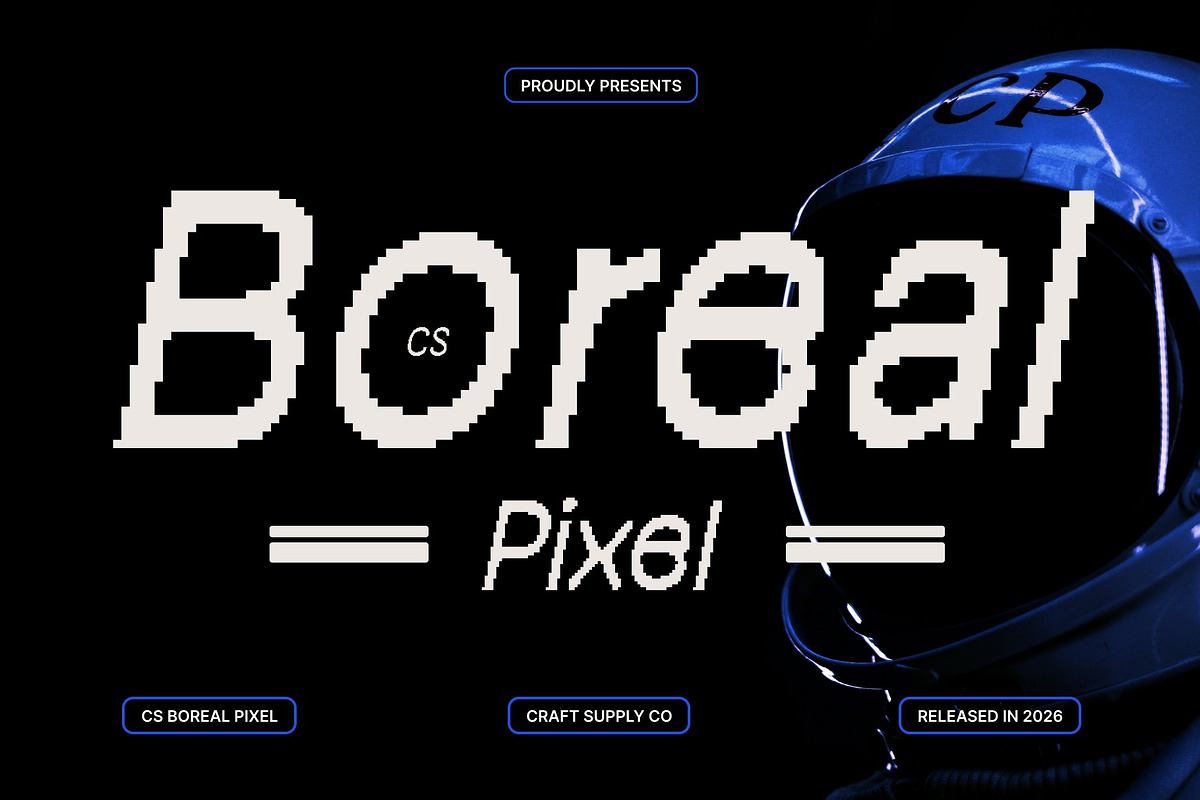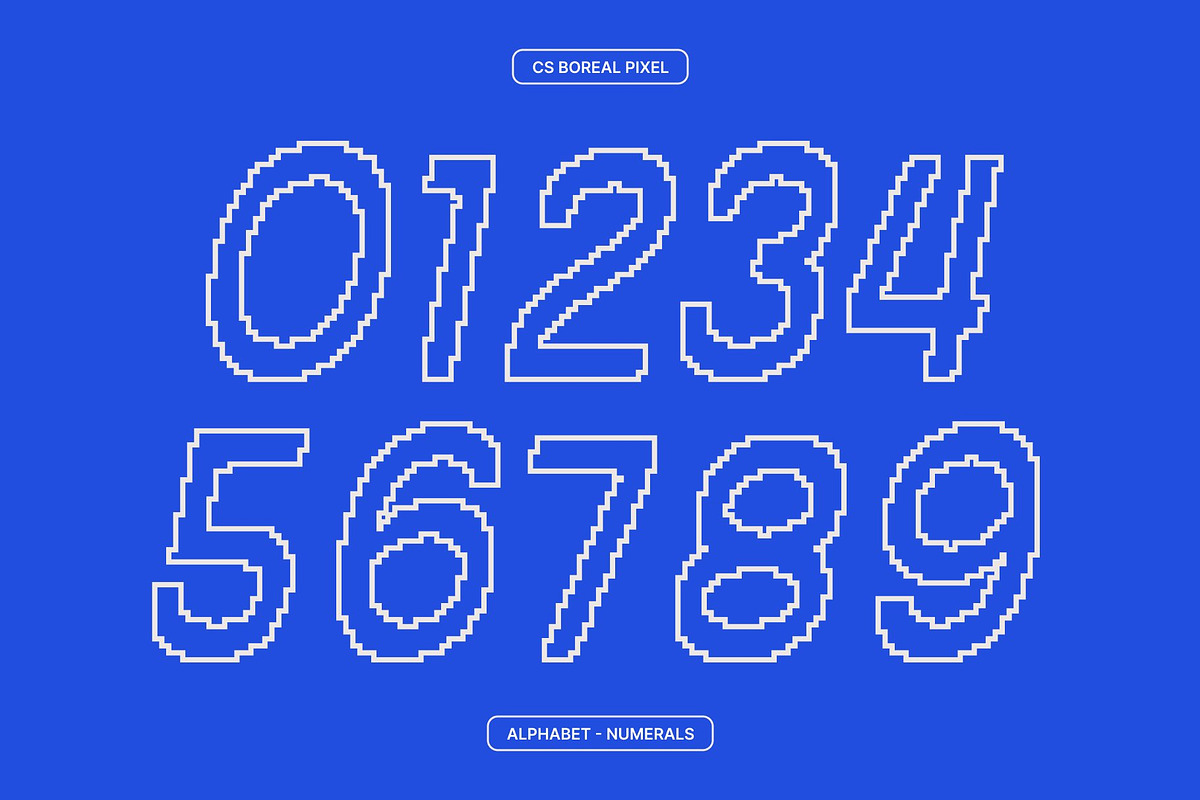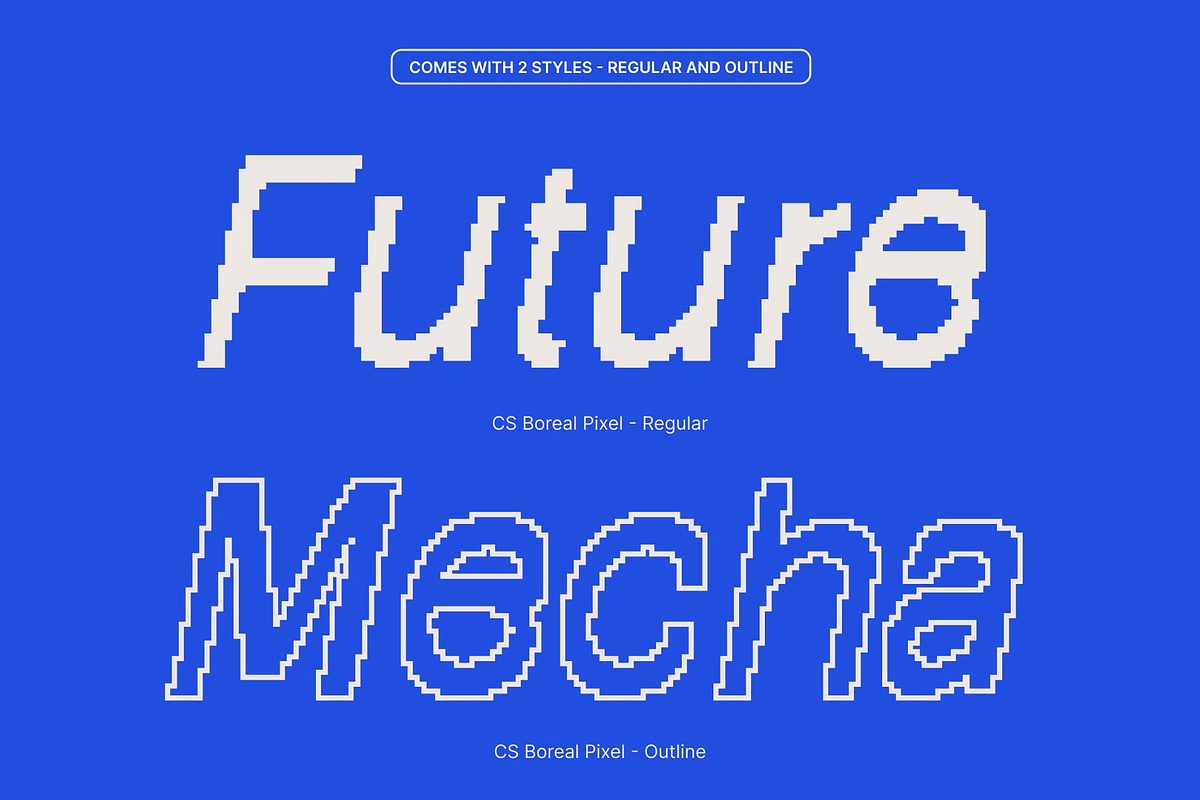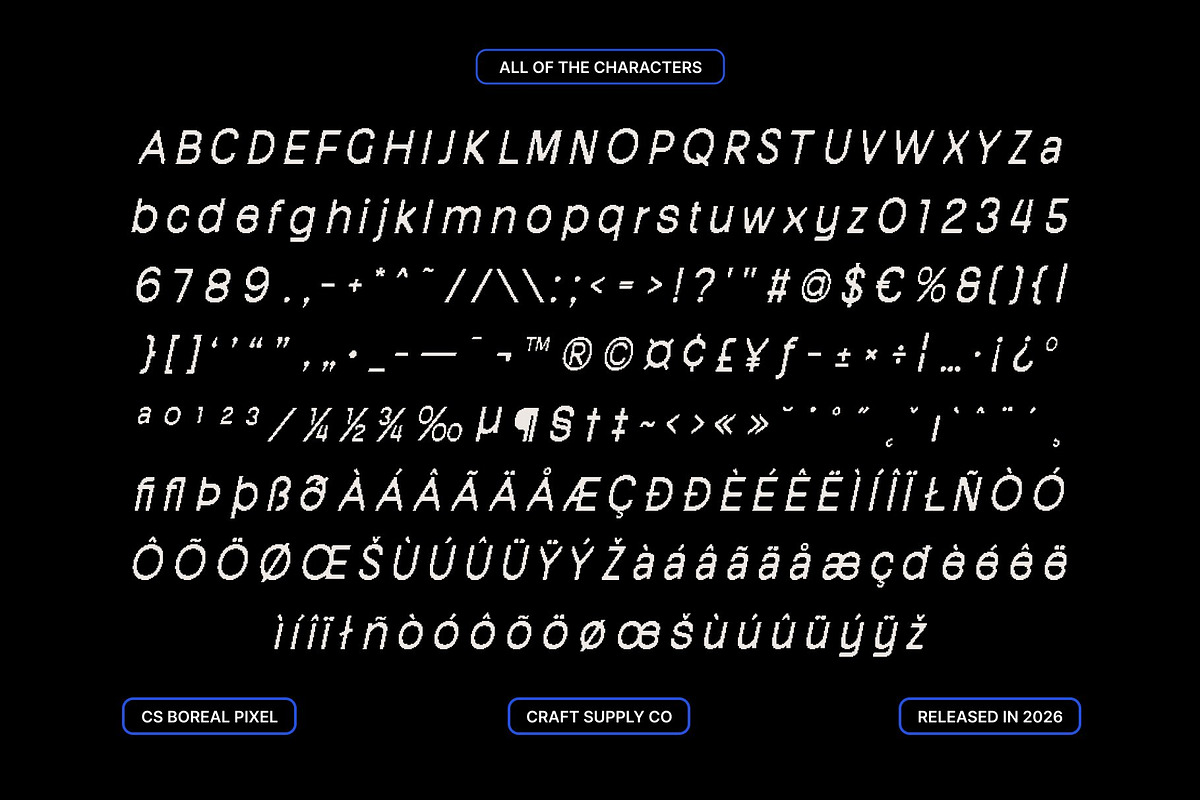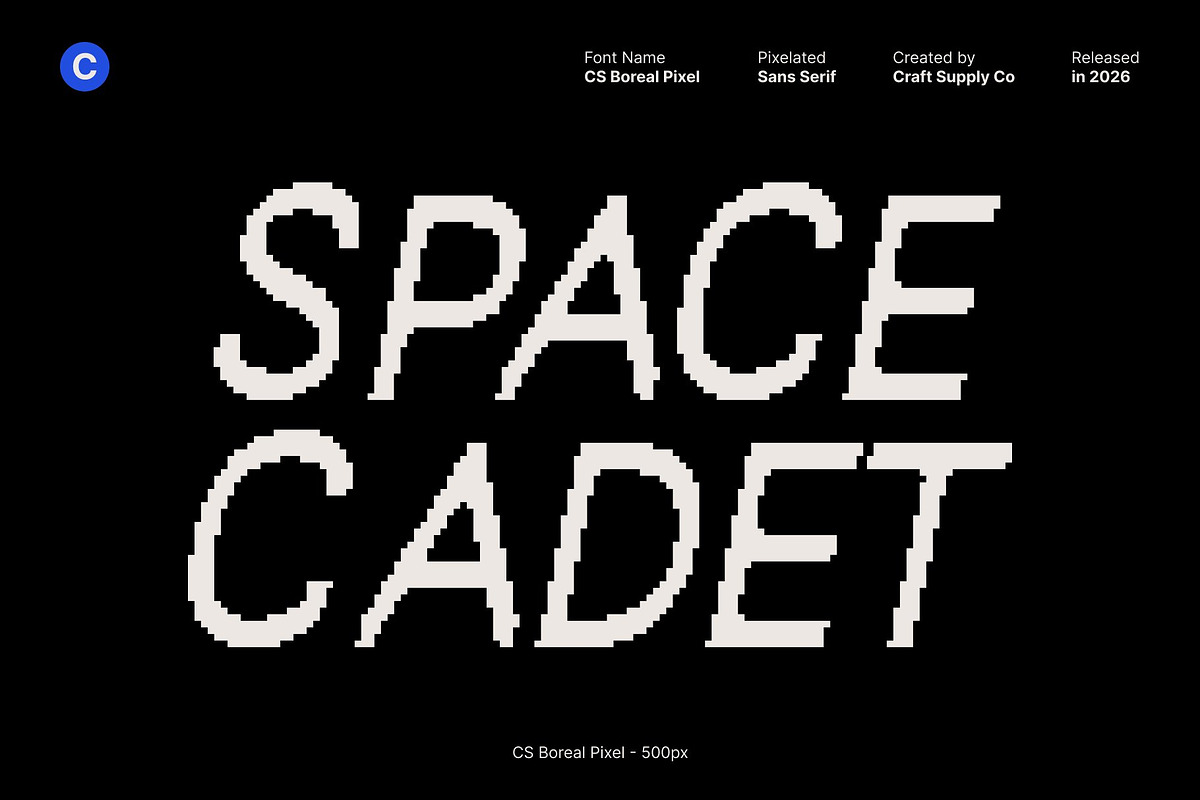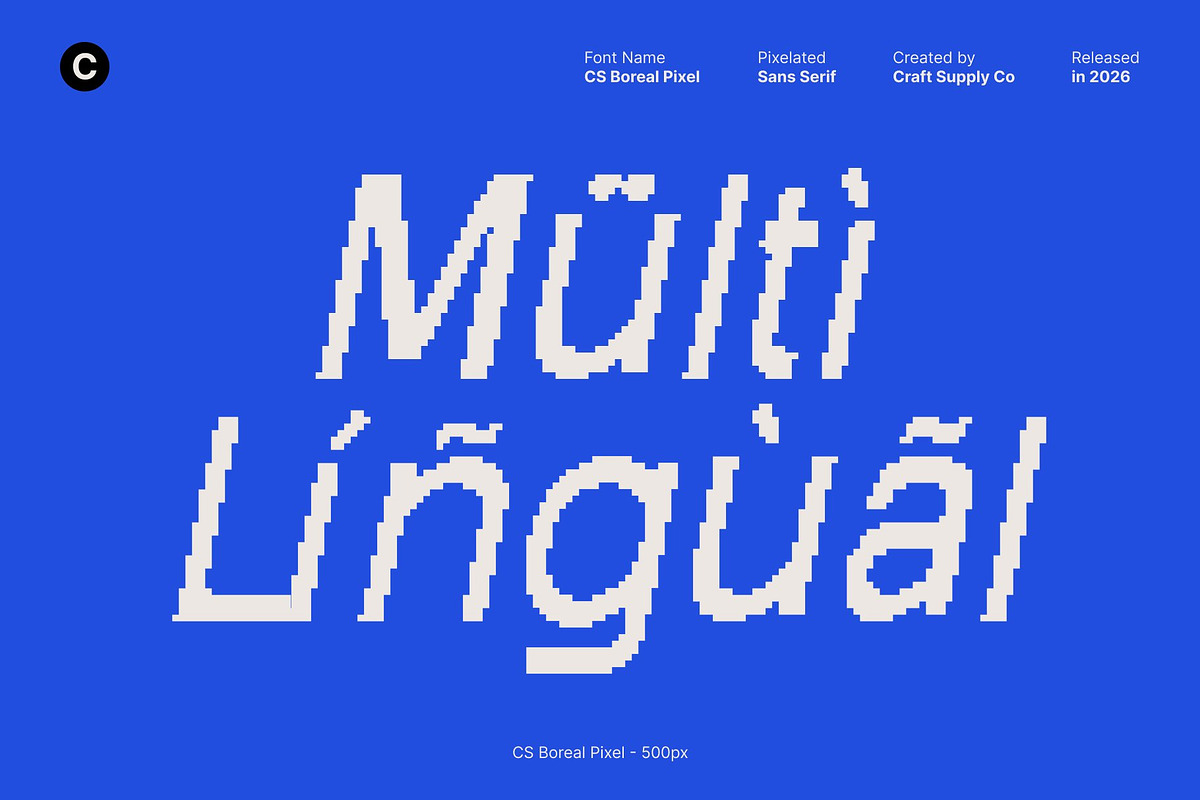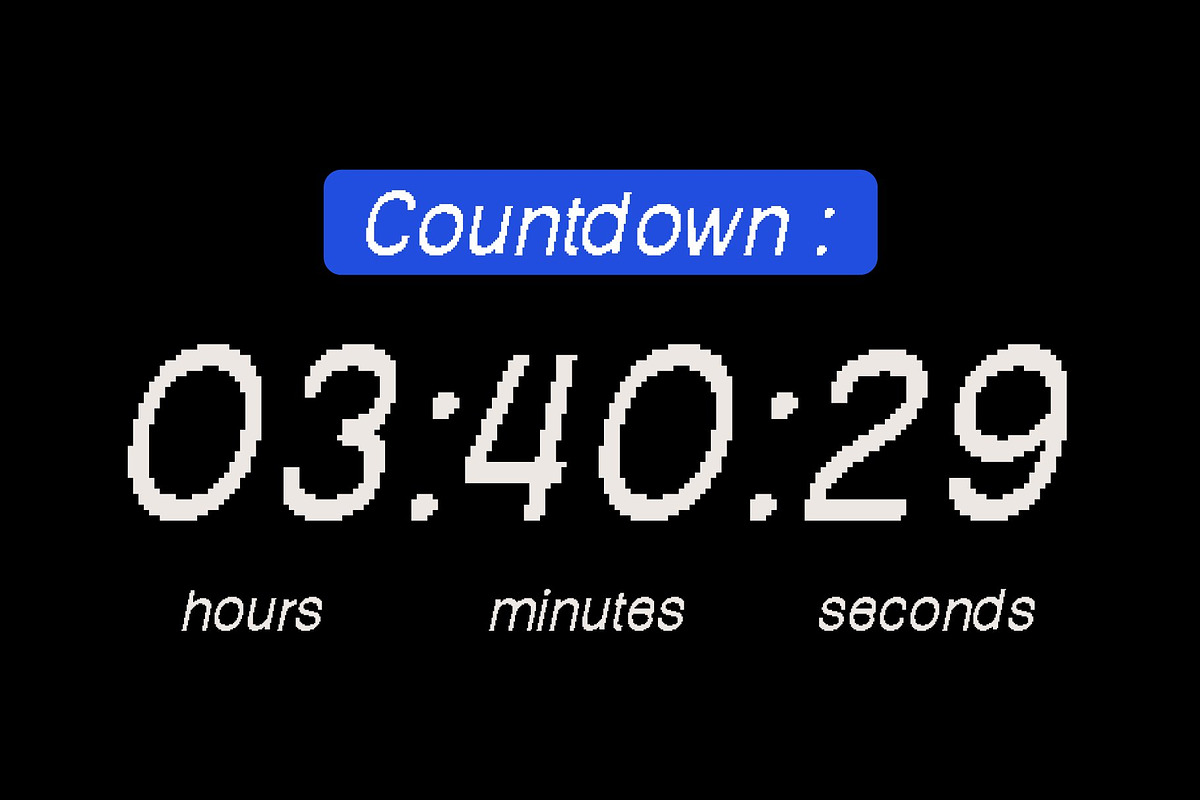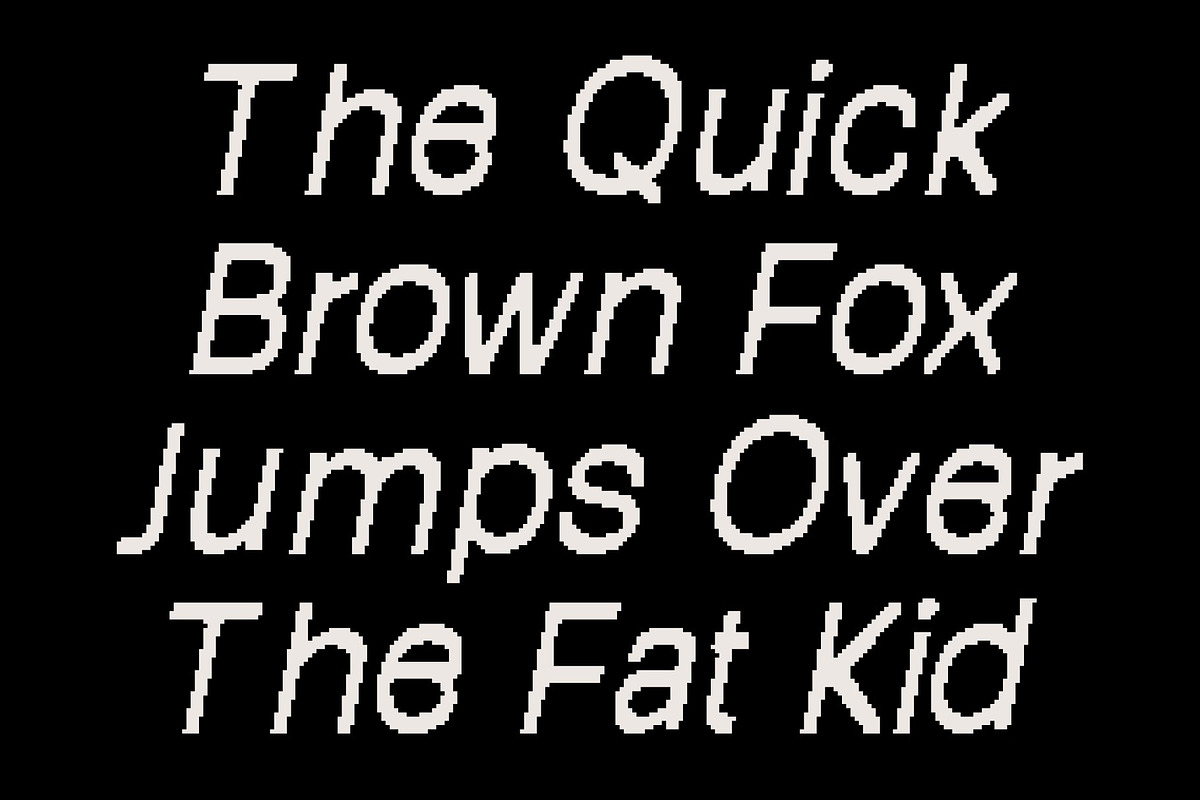
CS Boreal Pixel
CS Boreal Pixel – Modern Sans Serif with Fresh Quirky Character
Clean and Contemporary Sans Serif with Pixel Precision This is a modern sans serif font that blends clean construction with quirky, distinctive shapes, reimagined in a pixel style. Its structured forms are translated into crisp digital blocks, giving the font a fresh, contemporary look with a subtle retro-tech vibe. This pixel approach adds visual interest while preserving clarity, making the font feel modern, unique, and perfectly suited for screen-based design.
Quirky Pixel Details with Clean Digital Structure Built on a solid modern foundation, features playful quirks enhanced by pixel geometry. The pixel detailing prevents the font from feeling generic or rigid, adding personality without overwhelming the design. These carefully balanced digital shapes create a relaxed yet professional impression, ideal for designers who want character with precision.
Fresh, Modern, and Approachable Digital Style This font delivers a confident and approachable aesthetic through its pixel-based execution. It feels innovative and friendly, combining modern sans serif simplicity with nostalgic digital charm. The result is a typeface that communicates creativity, clarity, and technological flair at the same time.
Ideal for Branding and Retro-Digital Design Perfect for branding, logos, posters, UI design, and digital visuals, this font performs beautifully on screens. Its clean pixel structure makes it eye-catching for modern digital projects, retro-tech themes, and old-school computer–inspired designs, while remaining polished and professional.